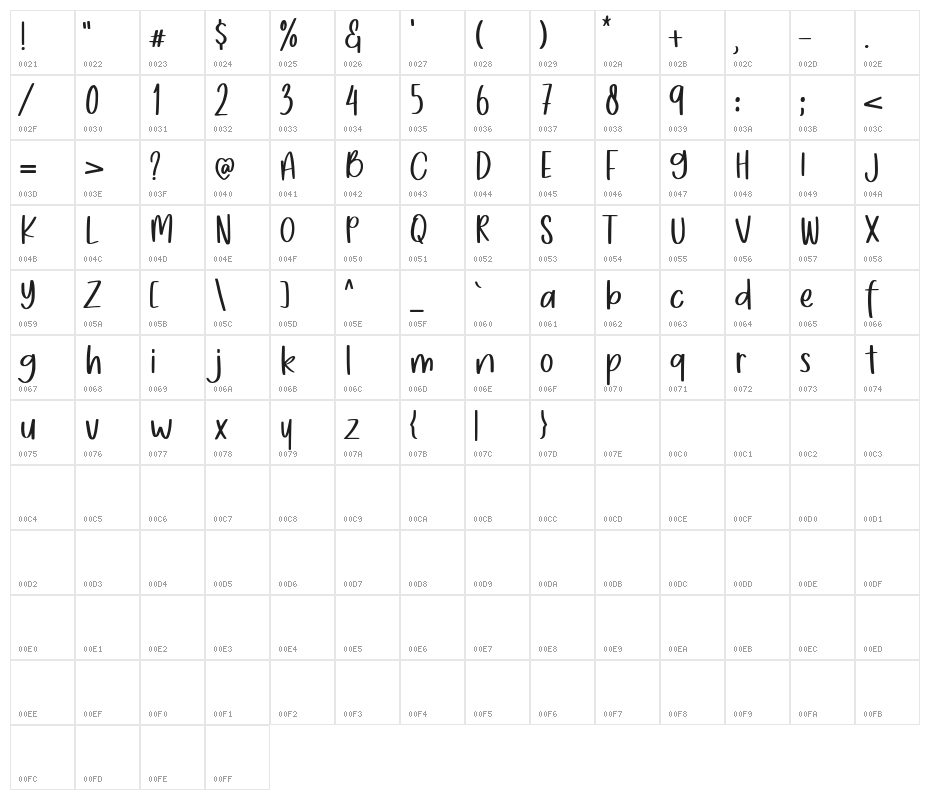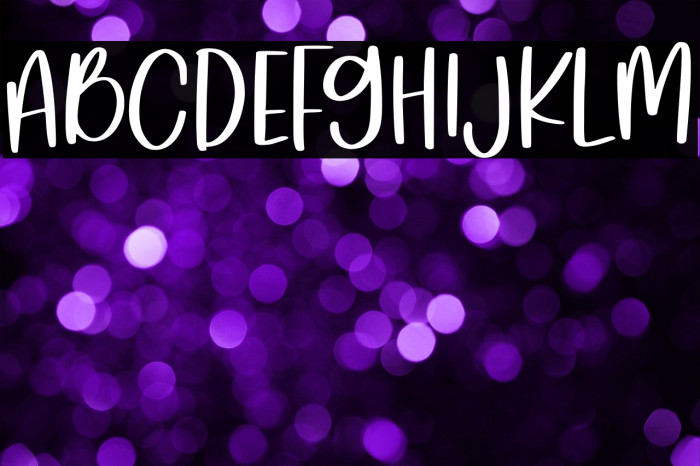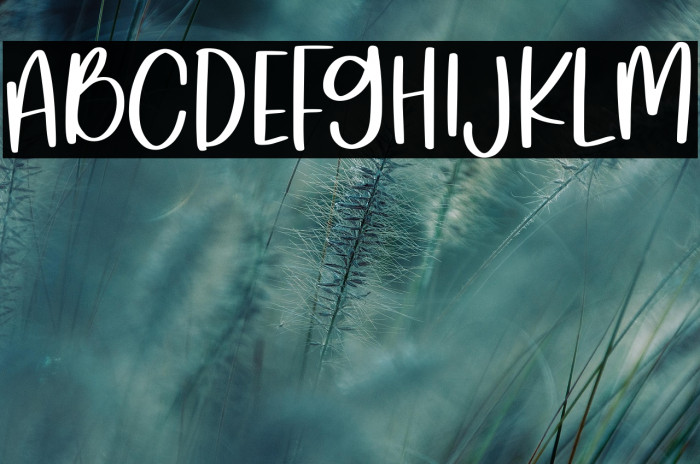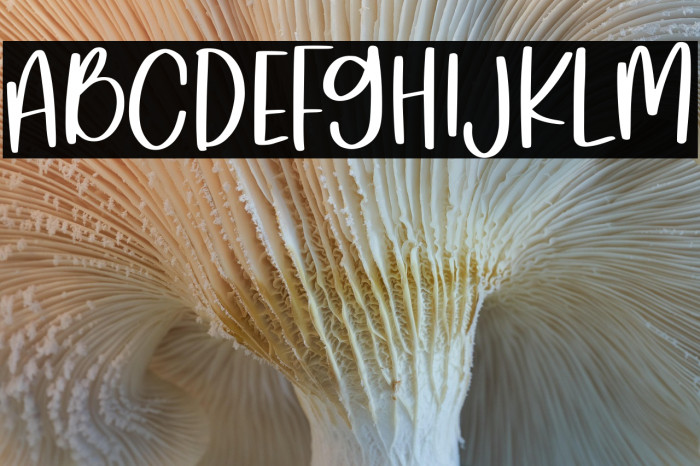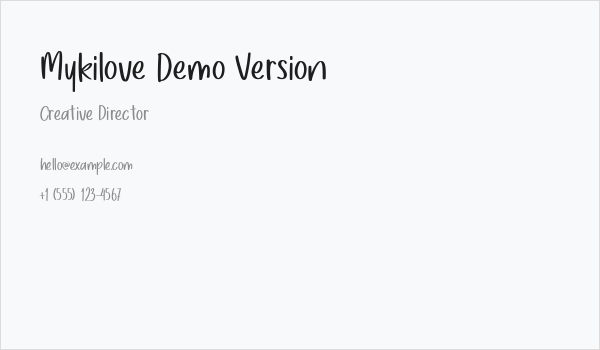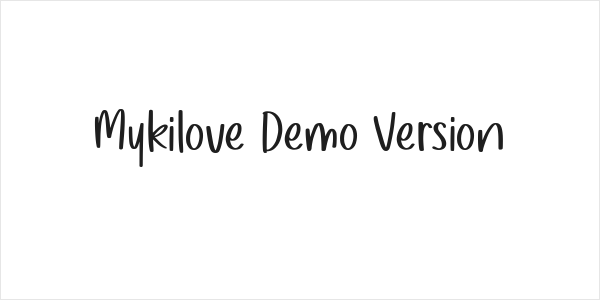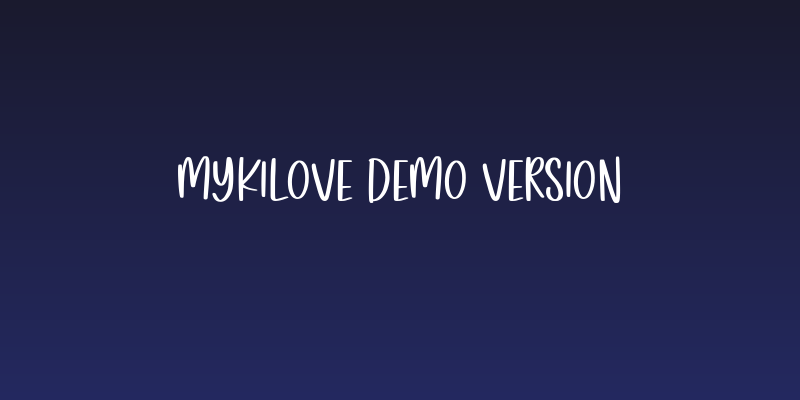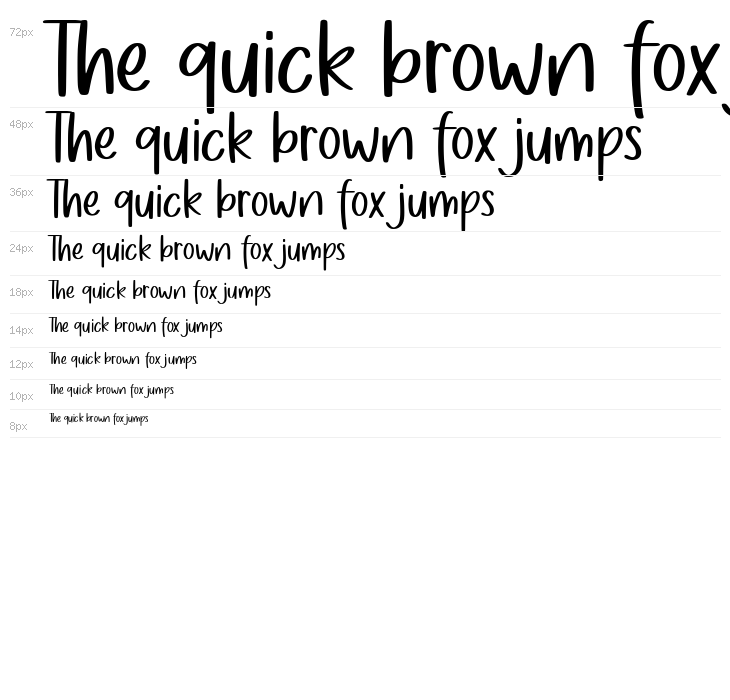
Mykilove Demo Version Font
Mykilove Demo Version Description
This font features a playful and casual handwritten style, characterized by its smooth, flowing lines and rounded edges. The letters are slightly slanted, giving a dynamic and lively appearance. The uppercase and lowercase letters maintain a consistent style, with a noticeable distinction in size and form. The numerals and special characters complement the alphabet with the same whimsical flair. This font exudes a friendly and approachable vibe, making it suitable for creative and informal projects.
Overall StyleCasual
Use CaseLogos, Headlines, Informal text
Proposed ProjectsIdeal for greeting cards, children's books, social media graphics, and personal branding.